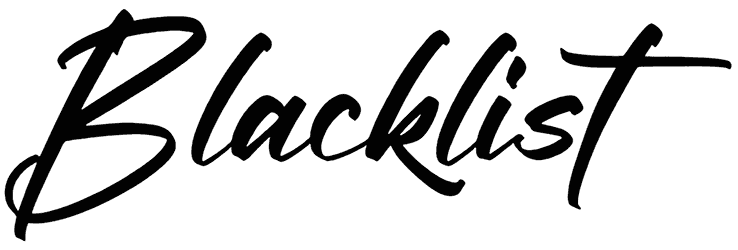
Blacklist Font
Blacklist is a handwritten font that looks like real handwriting because the letters flow together naturally. It makes letters, invitations, greeting cards, and fliers stand out from the crowd and look amazing.